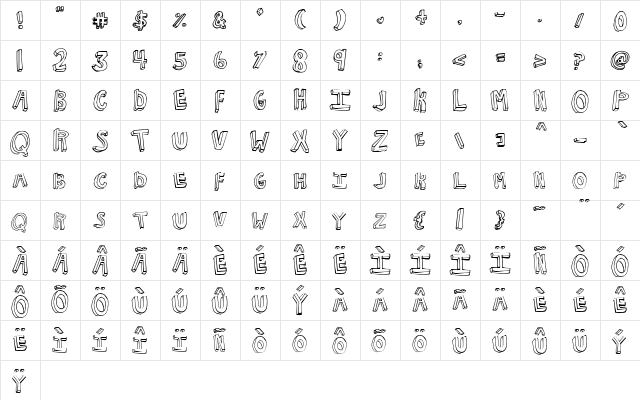
NKOTB Fever Regular
| Foundry | Kimberly Geswein |
| Designer | Kimberly Geswein |
Design Context for NKOTB Fever Typeface
NKOTB Fever is a composed and adaptable typeface that performs quietly and consistently across a wide range of design contexts.